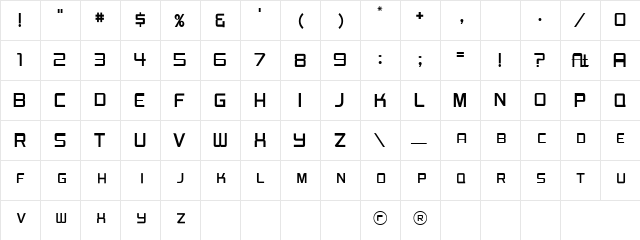
Burger Joint Small Caps JL Regular
| Foundry | Jeff's Fonts & Dingbats |
| Designer | Jeff Levine, from a Ray Larabie Original |
Design Context for Burger Joint Small Caps JL Typeface
Burger Joint Small Caps JL offers clean, dependable letterforms without strong stylistic allegiance, making it a practical choice for designers who need flexibility.
Pro Tip: Use Burger Joint Small Caps JL in both headline and body roles to test its range before committing to a single application.